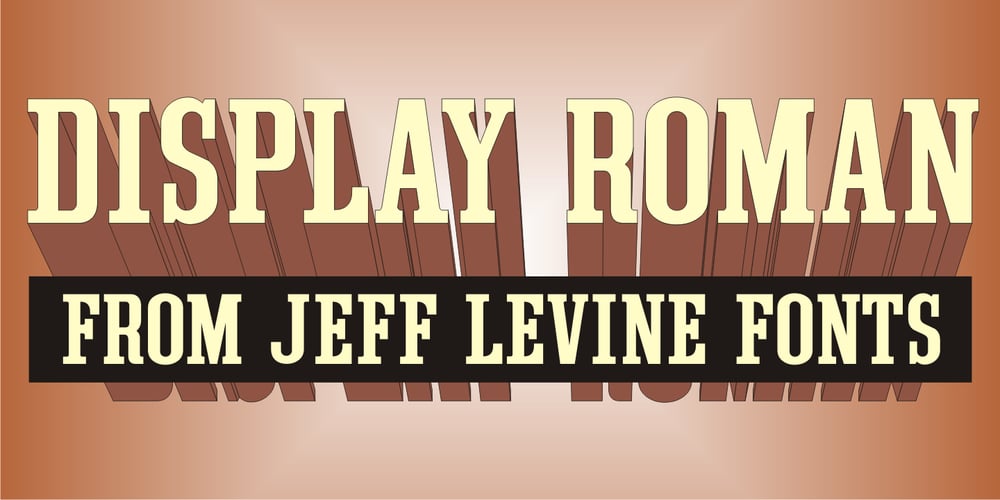
Display Roman JNL Font Family was designed by Jeff Levine and published by Jeff Levine. Display Roman JNL contains 1 styles and family package options. Display Roman JNL is derived from examples of some vintage sign letters, and features a condensed style with somewhat square letterforms and slab serifs.